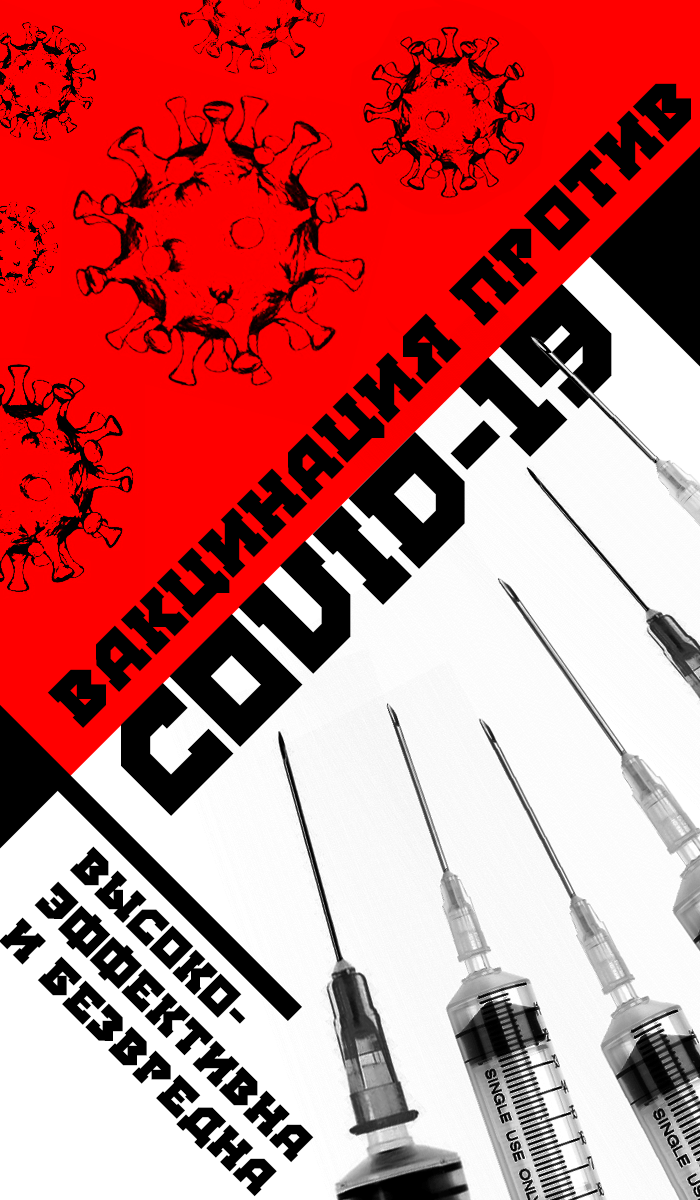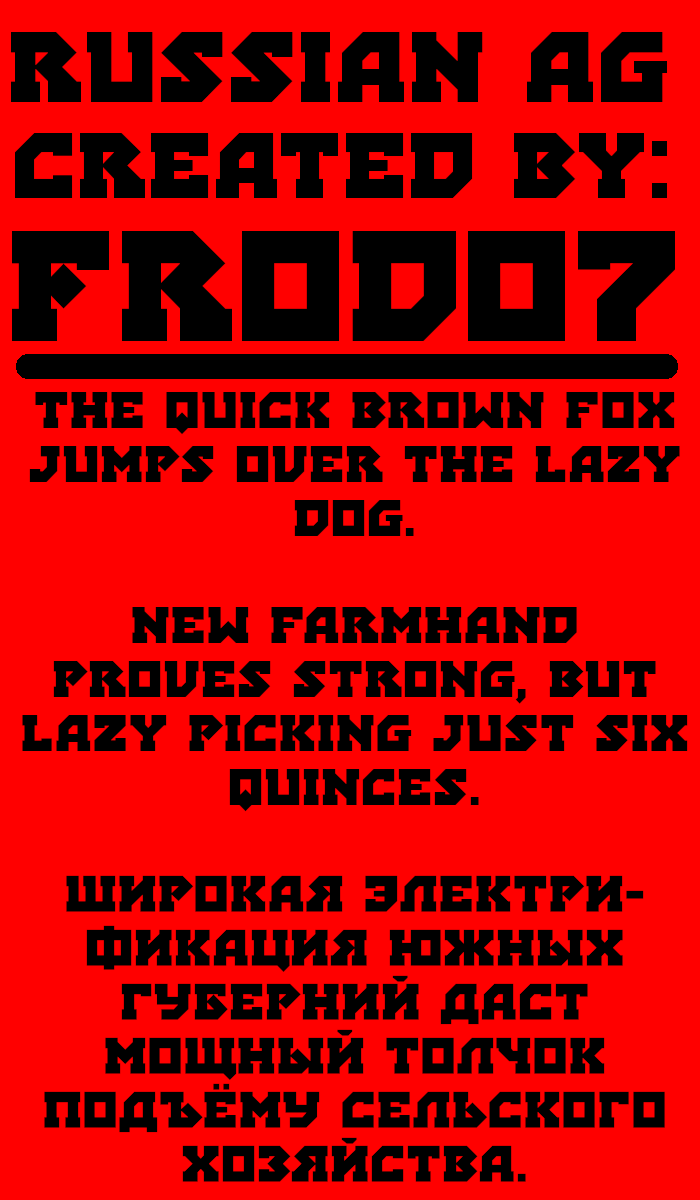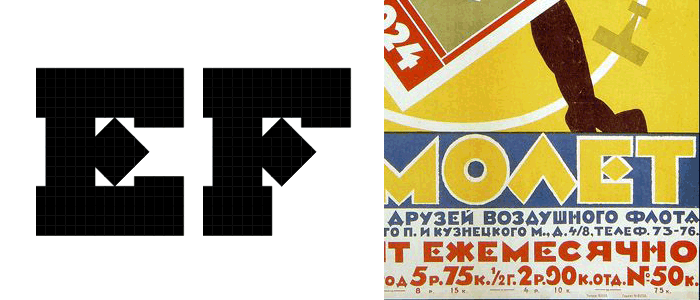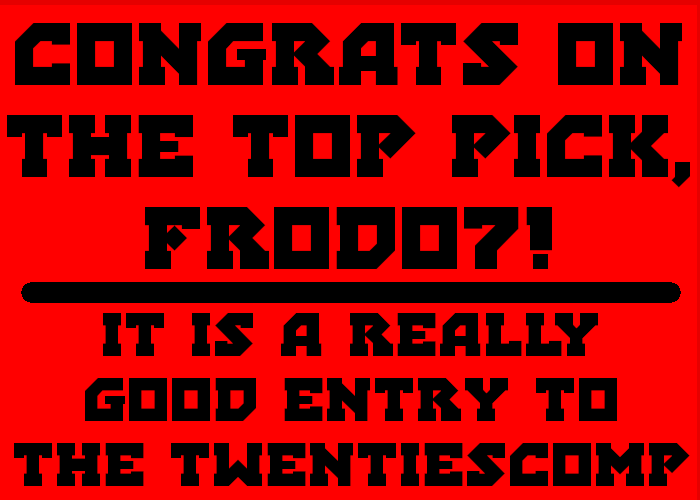
• Russian AG: (avant-garde) also known as Russian constructivism a period in the 1920s.
Another jewel born in good time! Please, don't forget the sample, Maestro.
@elmoyenique: Thank you for your kind words. The sample is coming. I barely finished my fonts and able to submit them in time. Kerning took a long time.
This looks very nice. I really like the alternate A..
The Åå appear to be missing the rings…
Russian text and translation:
вакцинация против ковид-19
защити себя и своих близких от коронавируса
высокоэффективна и безвредна
vaccination against covid-19
protect yourself and your loved ones from coronavirus
highly effective and harmless
@BWM: Thank you for your comment. The Å, å have got their ring now.
Sorry, but “высокоеффективна” should be “высокоэффективна” with ⟨э⟩ instead of ⟨е⟩.
Random text sample from Wikipedia.
@TH3_C0N-MAN: Thank you for your comment. You are right. I hope this is my only typo for today. Even Google didn't spot it.
I like. I would say that it is a mixture of constructivism and ardeco. The triangular ending in ц щ can be repeated in л д, or a rhombus in й. By the way, the Modern Cyrillic competition is being held until May 06, maybe you will be willing to take part.
This is a pretty good b e e g and c h o n k font.
Very striking design, E/F are particularly interesting.
gorgeous
There is so much skill in how you have pared down these letters to their essence, beautiful! Excellent sample too!
@ Dmitriy: Thank you for your comment. I appreciate all suggestions regarding the Cyrillic script. The "д" have had triangular feet in a prior version. It made the letter look more refined, more sophisticated; I wanted the opposite, to look my letters more rugged, more robust.
@V. Sarela (Yautja): The design of the E and F are characteristic of this period. The same solutions are not uncommon in 1920s posters.
This is an improved version of the demo poster. Typo corrected. The colours have changed to look more constructivist. I reduced the amount of text - the first version was too busy.
A sample of this font with 2 English pangrams and one Russian one…
@BWM: Thank you for your comment and the text samples. How on Middle-Earth could someone compose a Russian dummy text that includes all letters in the alphabet including the "ъ" is beyond me.